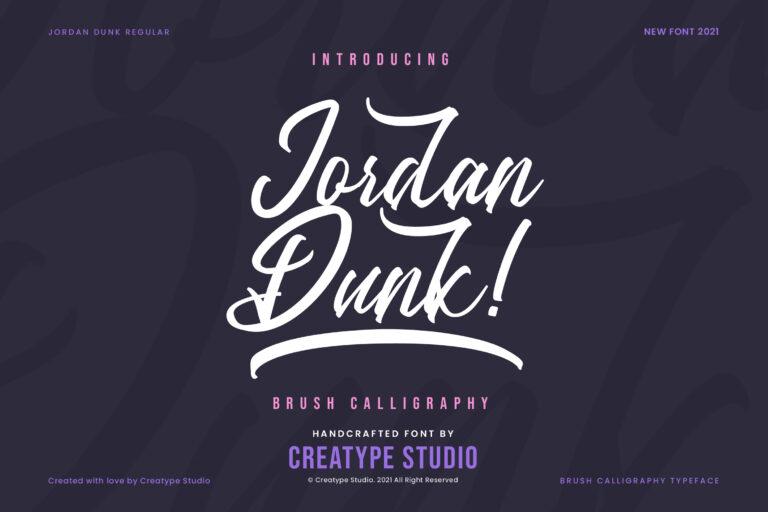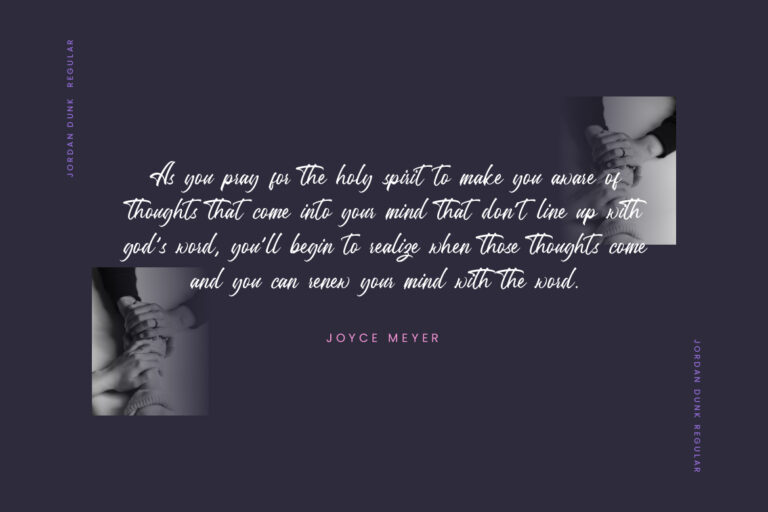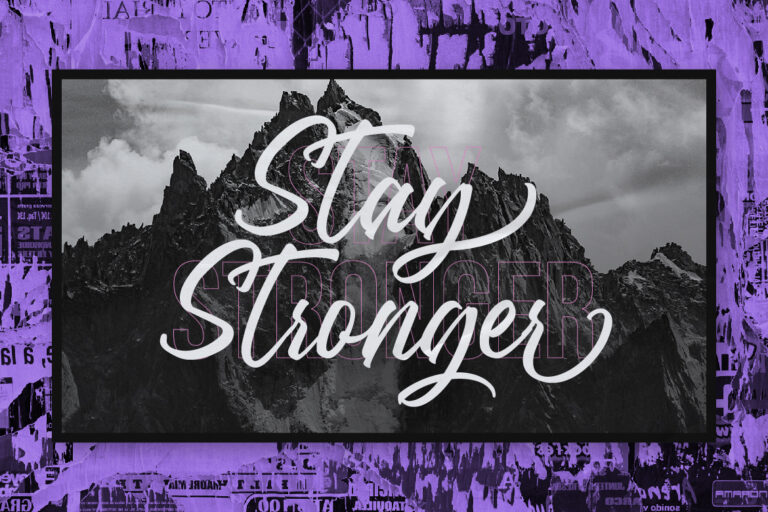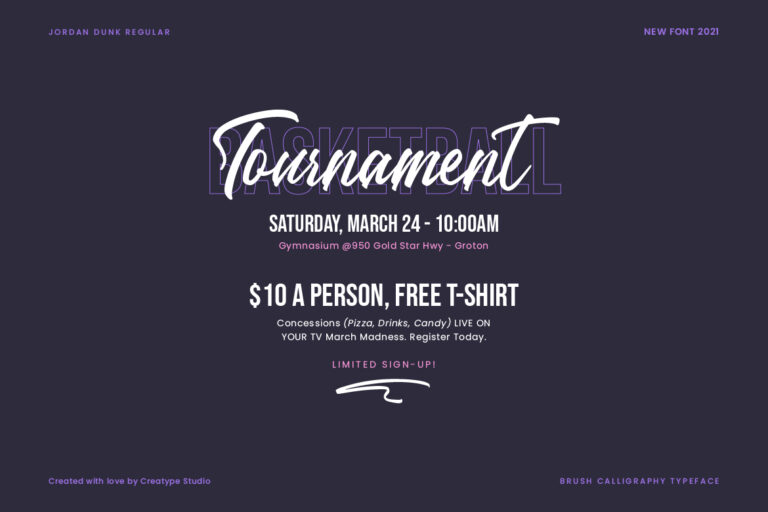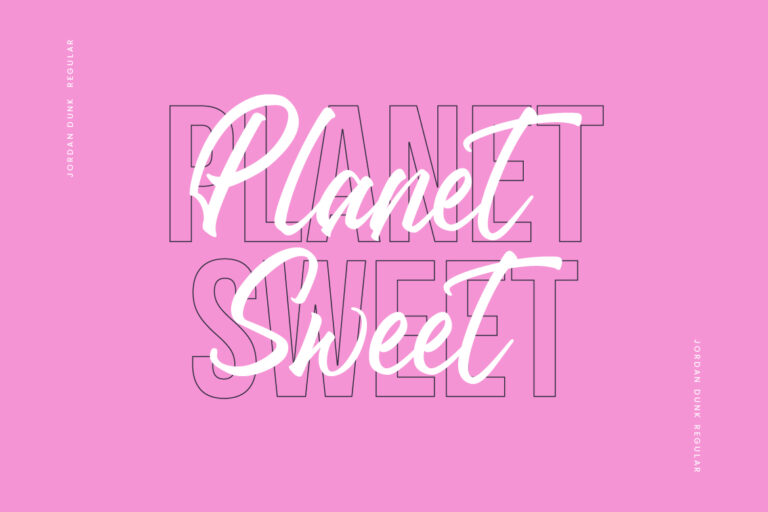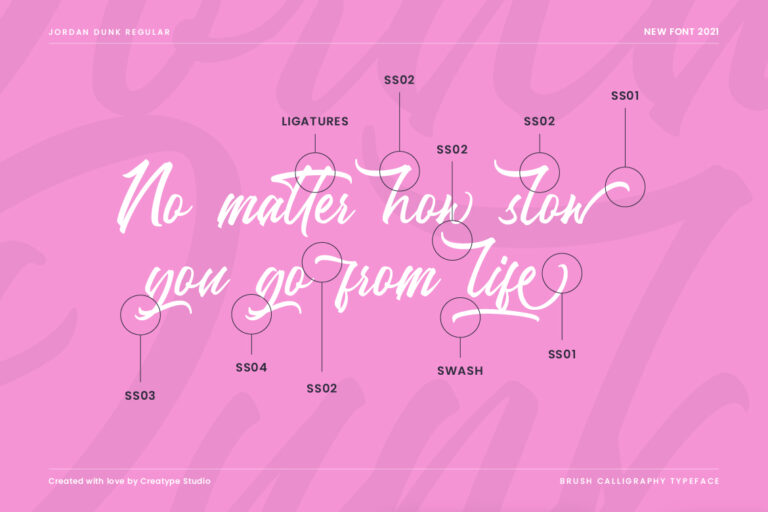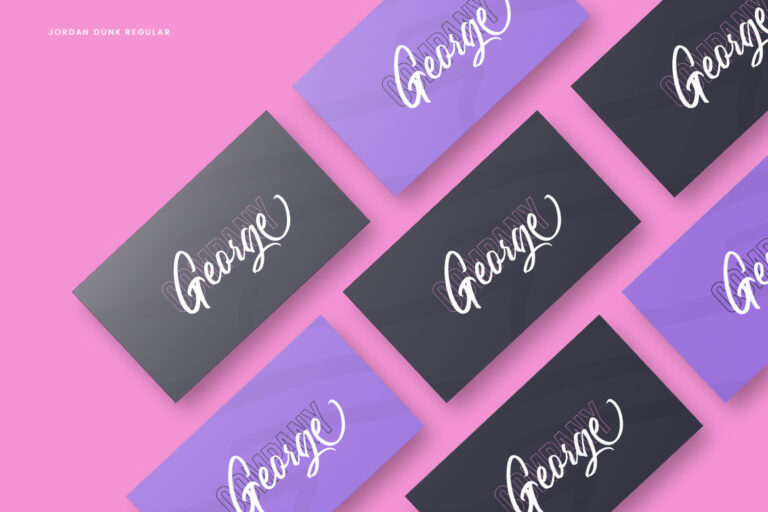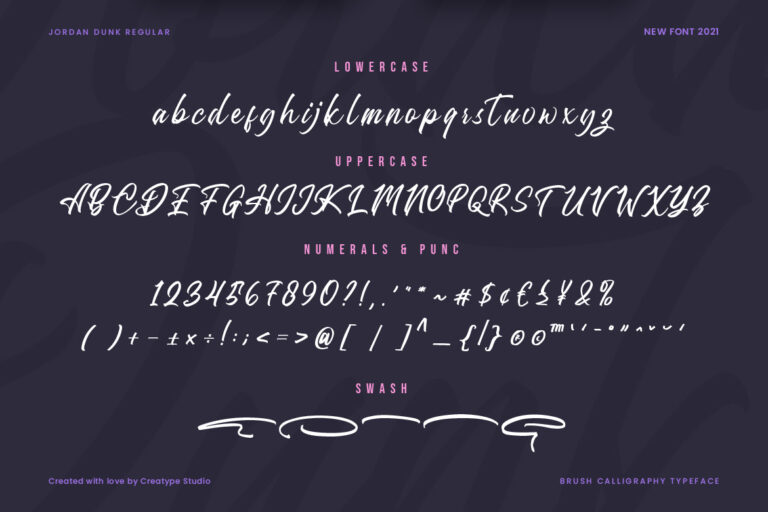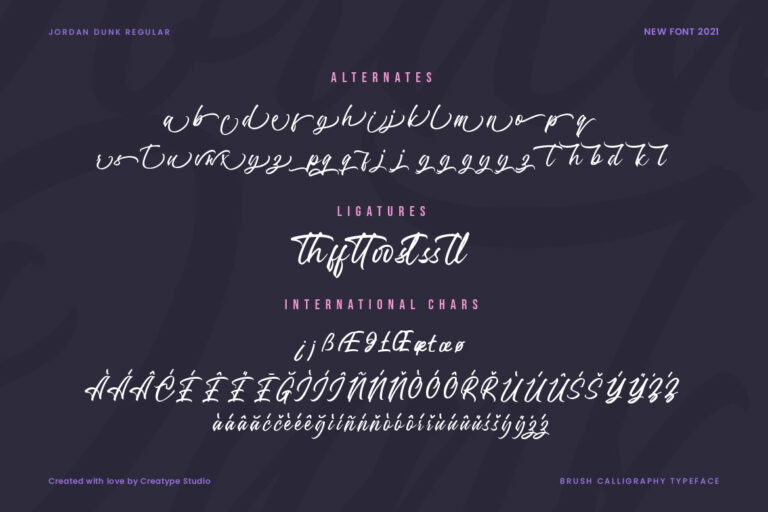
Jordan Dunk Brush Calligraphy
Jordan Dunk is a brush calligraphy typeface that looks trendy with a natural and stylish shape. This font is perfect for your project that wants to stand out from the rest. There are 44 alternative types and 7 ligatures in the purchase package that you must have.
Jordan Dunk is perfect for branding projects, logo, wedding designs, social media posts, advertisements, product packaging, product designs, label, photography, watermark, invitation, stationery and any projects that need handwriting taste.